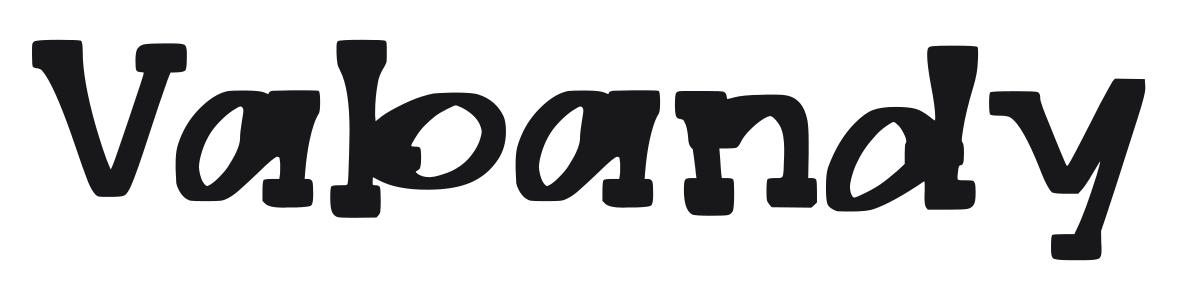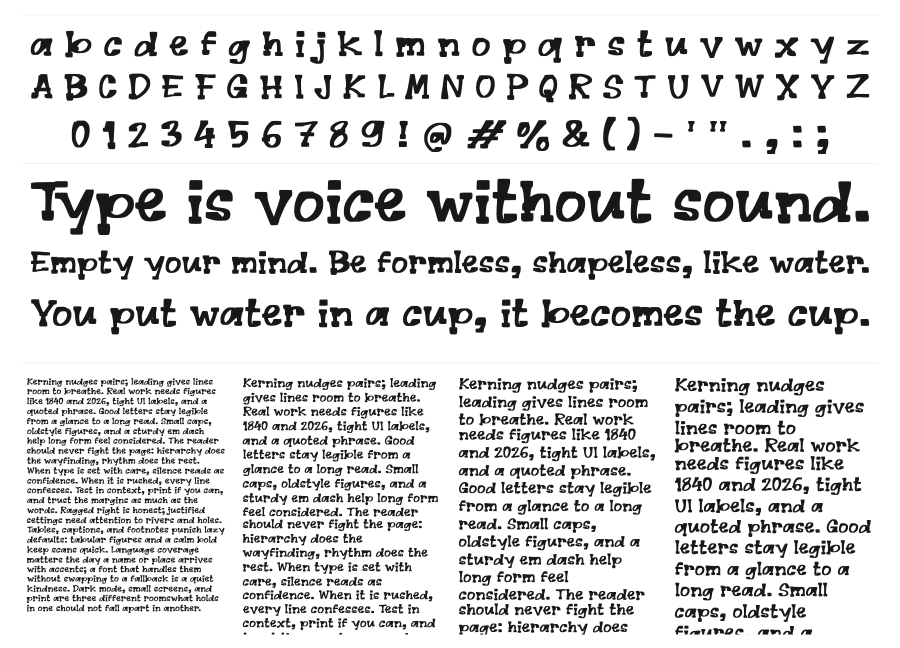
Vabandy
Vabandy is a bold, chunky serif with a hand-stamped roughness that gives it serious handmade character. The irregular edges and slightly wobbly construction feel deliberate rather than accidental, landing somewhere between woodblock printing and casual hand-lettering. It works well anywhere you want weight and warmth without corporate polish.